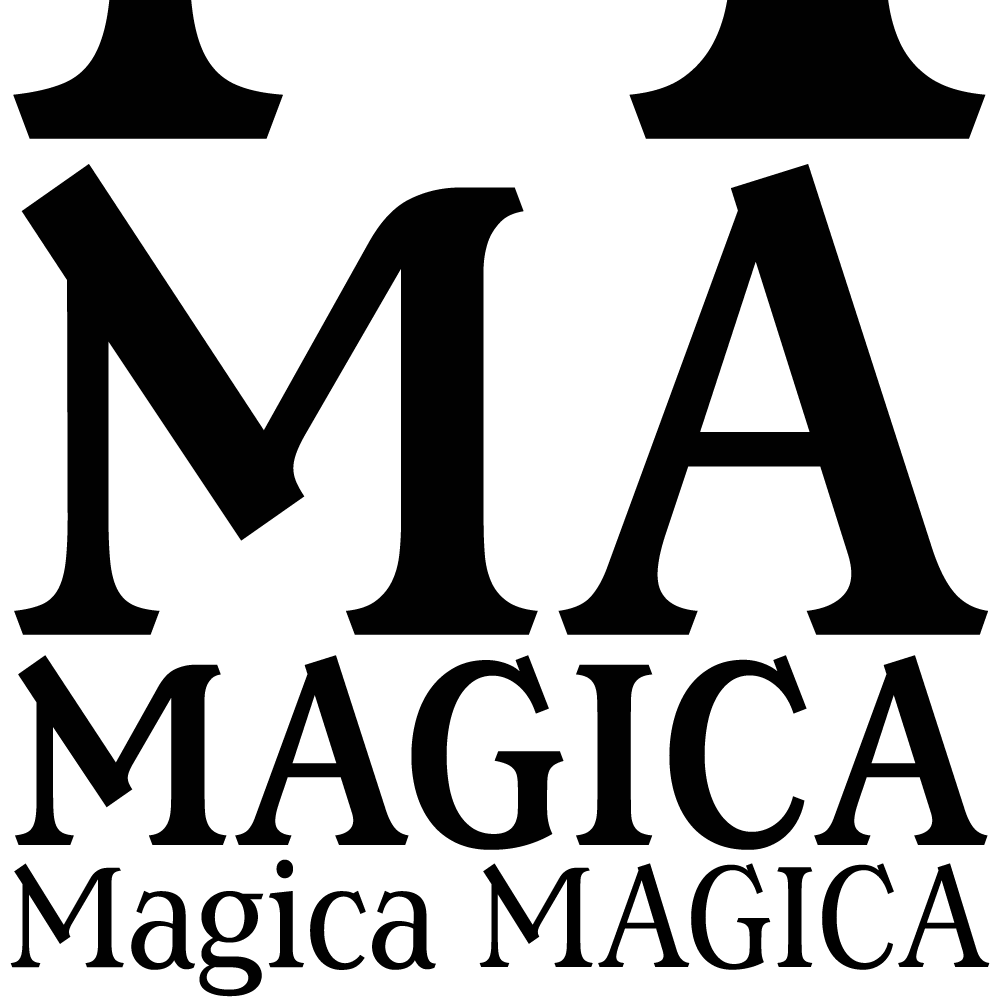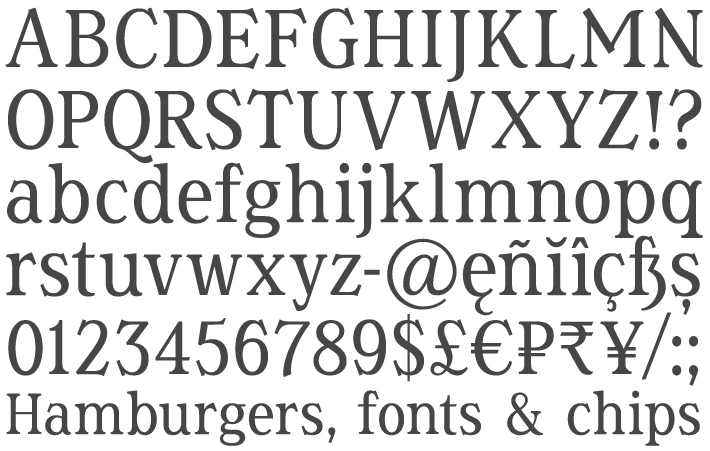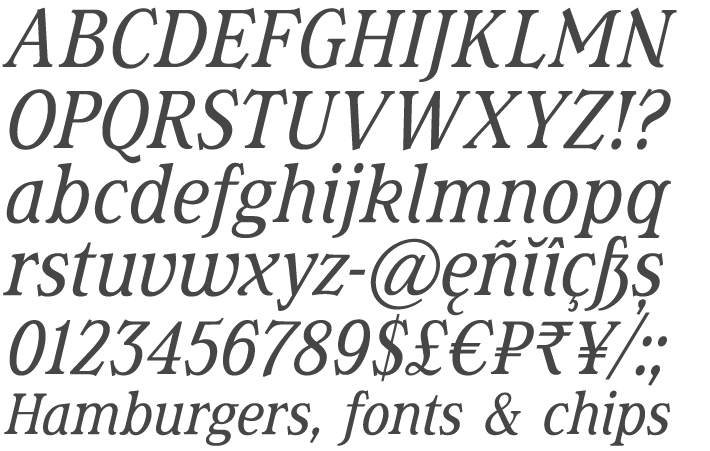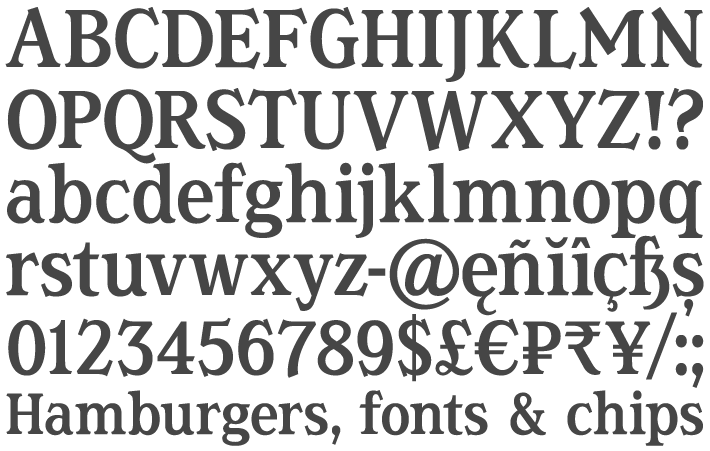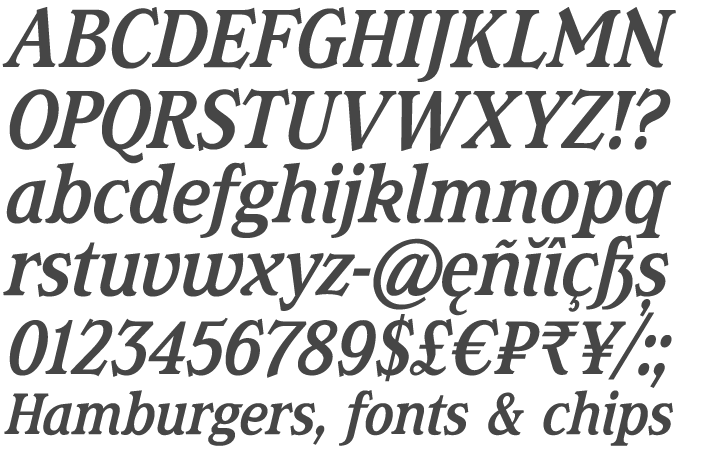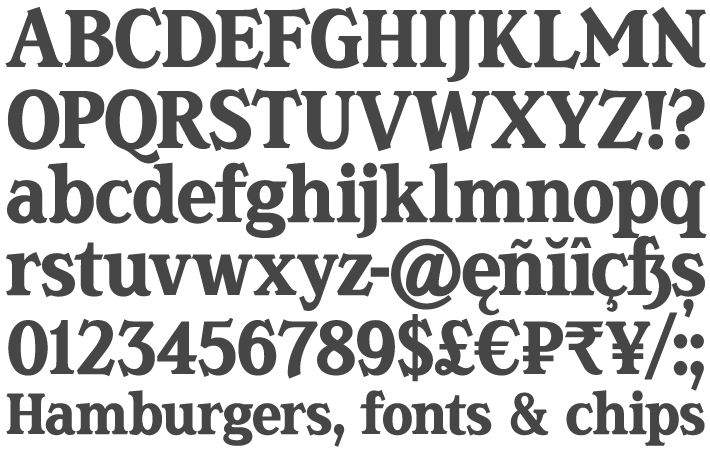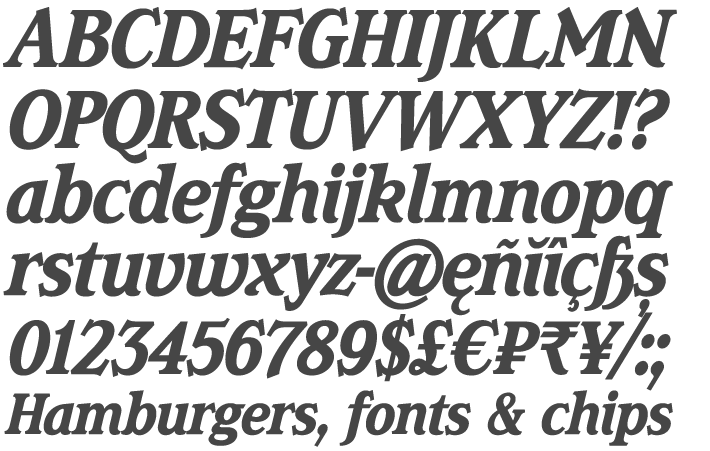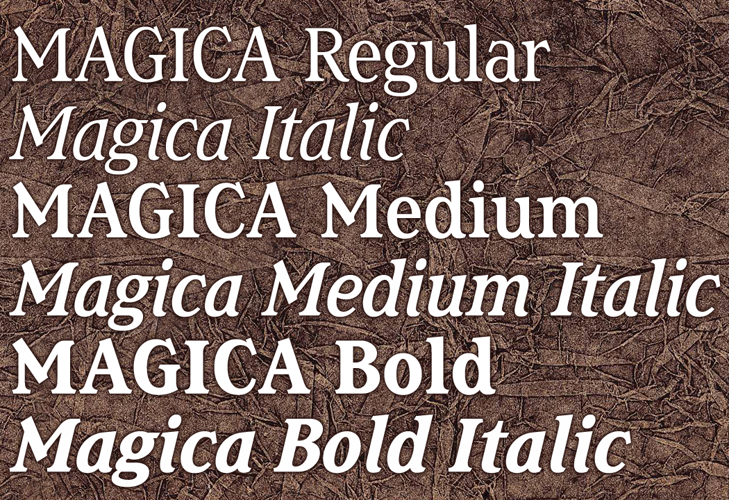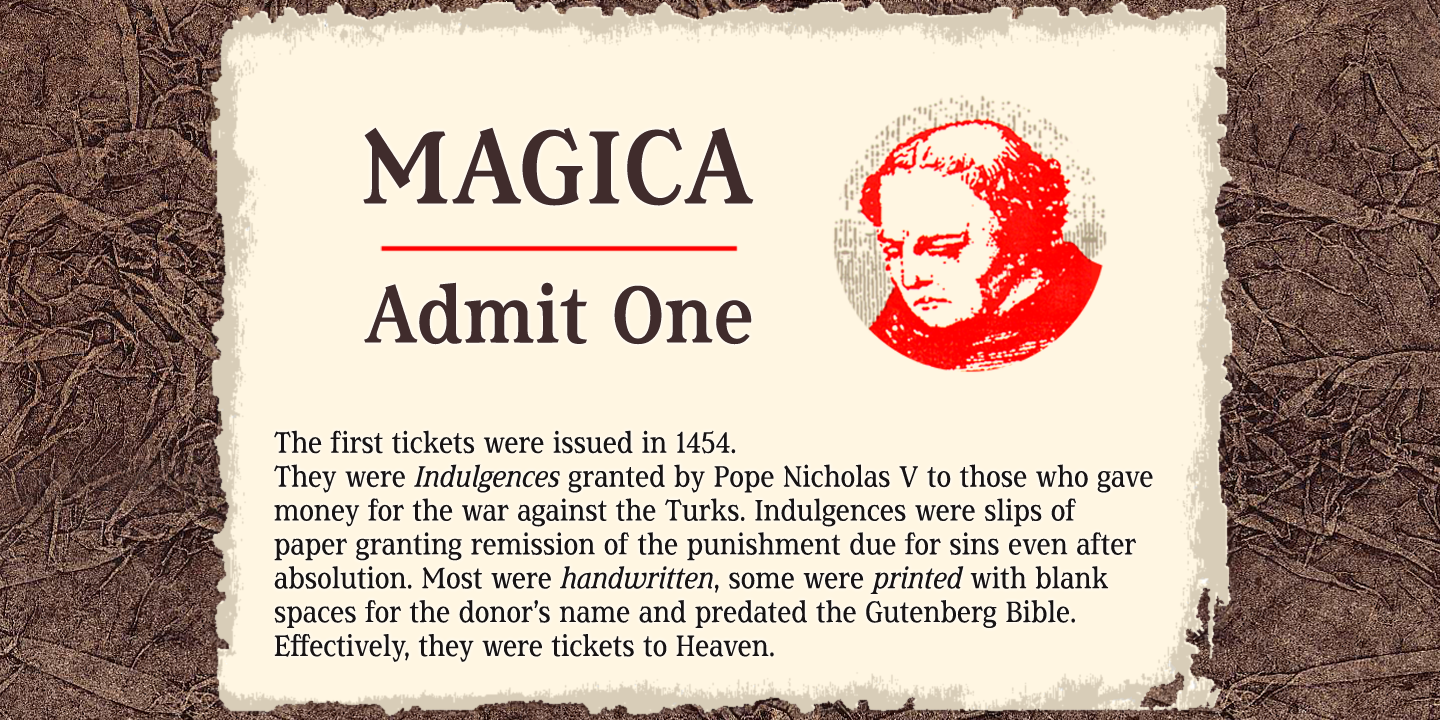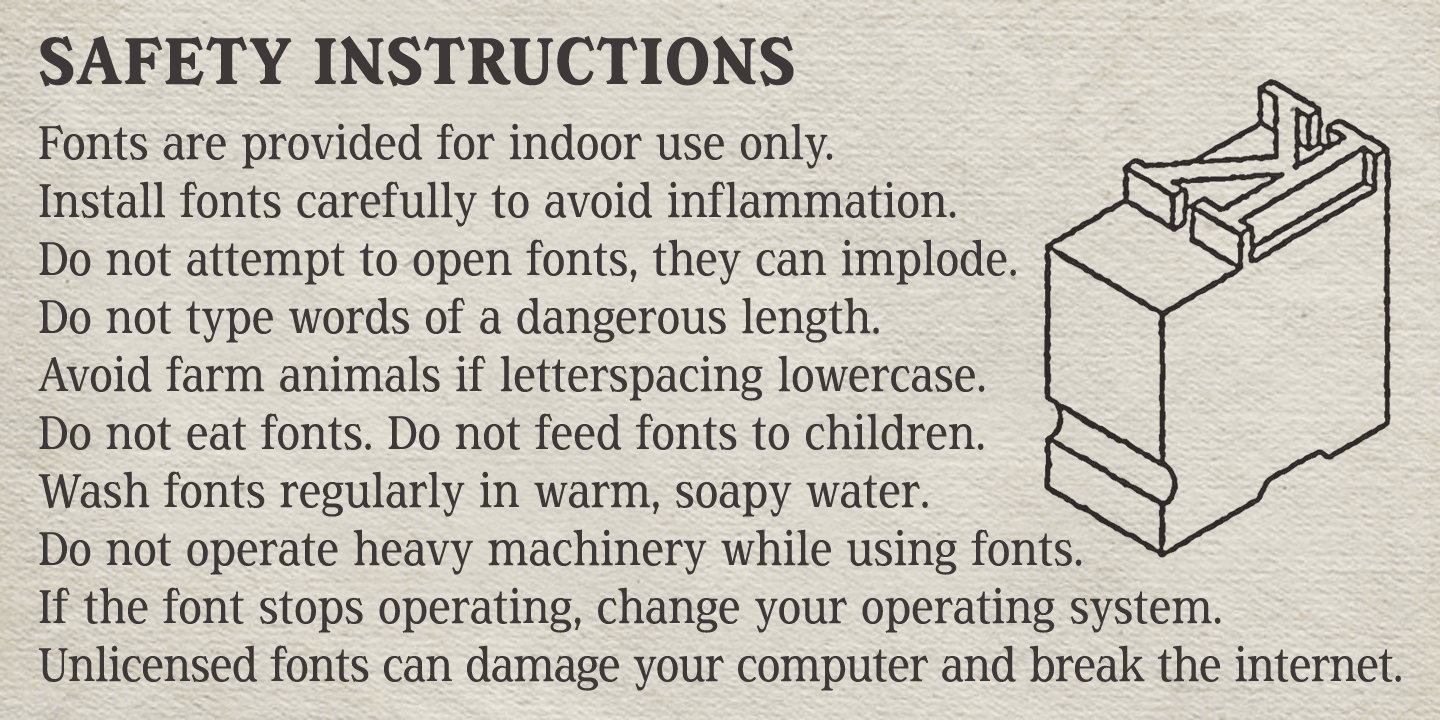
Magica
Magica is a book and display face that is both distinctive and legible – clear letterforms and a generous x-height make Magica a good choice for text or titles. The typeface has elegantly chamfered serifs and a confident, vivacious character that is equally suited to formal and informal usage.
Magica is available in three weights – Regular, Medium and Bold – each supplied with a free italic.